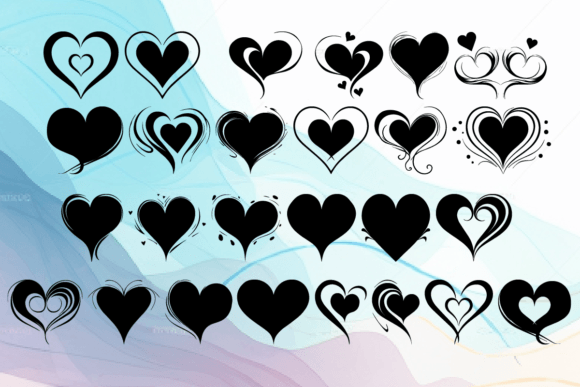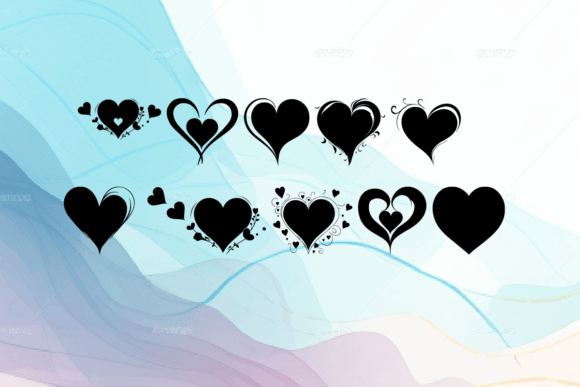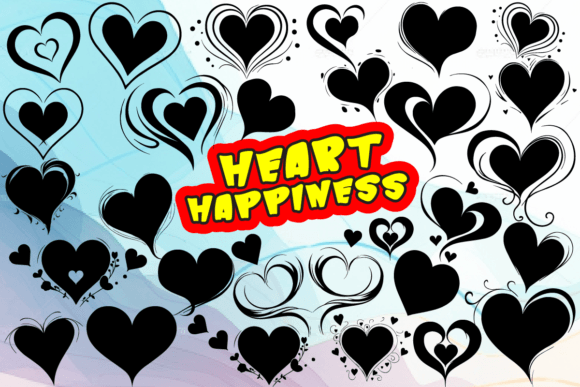
Introducing Heart Happiness Dingbats Fonts: Add a Touch of Love to Your Designs
Are you tired of using the same old fonts in your designs? Do you want to add a touch of whimsy and charm to your projects? Look no further than Heart Happiness Dingbats Fonts! This delightful digital product features 36 adorable characters, including the full alphabet from A to Z and the numbers 0 through 9, all adorned with cute heart shapes.
What is Heart Happiness Dingbats Fonts?
Heart Happiness Dingbats Fonts is a unique digital product that allows designers, crafters, and DIY enthusiasts to add a touch of love and charm to their projects. The font features 36 charming characters, including:
- Full alphabet from A to Z
- Numbers 0 through 9
- All characters are adorned with adorable heart shapes
How Can I Use Heart Happiness Dingbats Fonts?
The possibilities are endless with Heart Happiness Dingbats Fonts! Here are some ideas to get you started:
- Use the font to create adorable greeting cards and invitations for special occasions like Valentine’s Day, weddings, and anniversaries.
- Add a touch of whimsy to your social media graphics and posts.
- Use the font to create cute and playful labels and tags for your craft projects.
- Incorporate the font into your blog or website design to add a personal touch.
Why Should I Choose Heart Happiness Dingbats Fonts?
Here are just a few reasons why Heart Happiness Dingbats Fonts stands out from the rest:
- Unique and adorable design: The heart-shaped characters are sure to add a touch of love and charm to your projects.
- Versatile: The font can be used for a wide range of projects, from digital designs to print materials.
Tips and Tricks for Using Heart Happiness Dingbats Fonts
Here are some tips and tricks to help you get the most out of Heart Happiness Dingbats Fonts:
- Use the font in combination with other fonts to create a unique and playful look.
- Don’t be afraid to get creative and try out new and unusual design ideas.